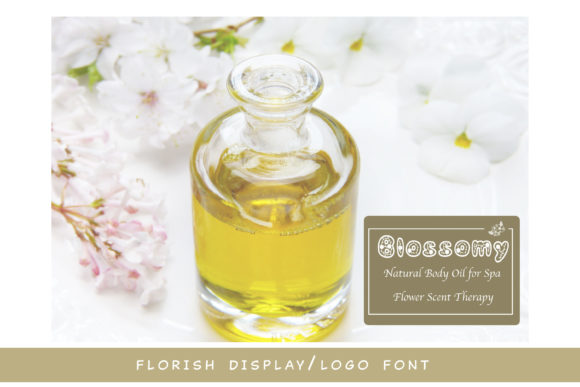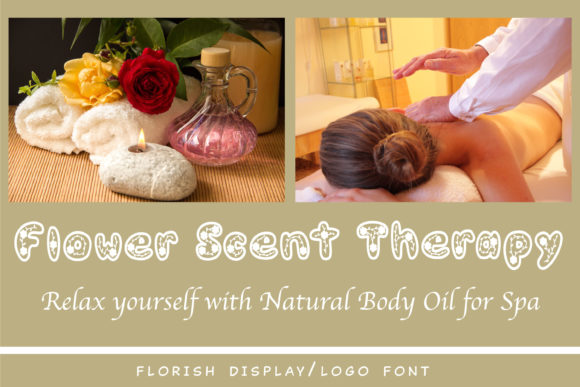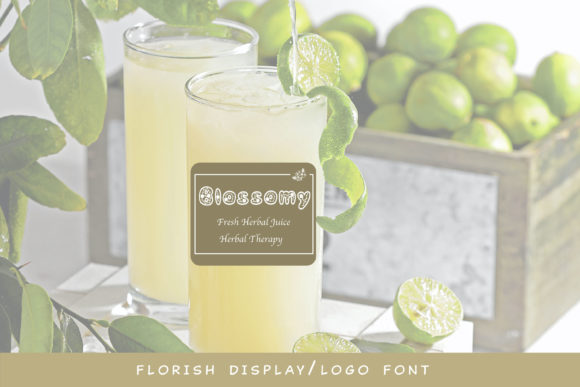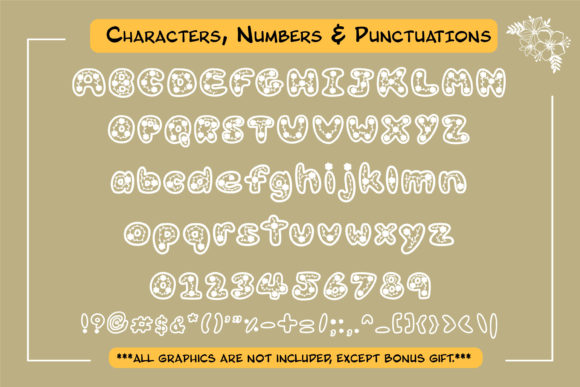
Unleash Your Creativity with Blossomy Font
Do you remember that moment when a spark of creativity hits you, and you know exactly what you want to create? The excitement is palpable, and the possibilities seem endless. For designers, that moment often comes when they’re brainstorming a new project or trying to bring a concept to life. And what better way to make your creation shine than with a font that’s as charming as it is eye-catching?
Enter Blossomy Font, a delightful decorative font designed to add a touch of whimsy and elegance to your designs. With its flowery and friendly vibe, Blossomy Font is perfect for creating posters, invitations, and social media graphics that are sure to grab attention. Whether you’re a seasoned designer or just starting out, Blossomy Font is a valuable addition to your toolkit, offering a unique way to express your creativity and make your projects stand out from the crowd.
Blossomy Font Key Features
- Unique Characteristics: The font features a unique, hand-drawn design with subtle flourishes and organic shapes, adding a touch of elegance to any text.
- Weight and Style: The font is available in 4 weights (Light, Regular, Bold, and Extra Bold) and 2 styles (Regular and Italic), providing a range of options for designers to choose from.
Blossomy Font Review
As a designer, I was excited to dive into the world of Blossomy Font. The first thing that caught my attention was the ✨ unique and playful aesthetic. The font is perfect for adding a touch of whimsy to any project, and its varied styles make it versatile for different design applications.
The font’s ✨ ligatures and swashes are a highlight, adding an extra layer of personality to any text. The ✨ extensive character set and language support make it a great choice for multilingual projects. Additionally, the font’s ✨ high-resolution output ensures that it looks great on both digital and print materials.
- ⚠️ Limited weight range: The font is available in a limited range of weights, which might not be suitable for all design needs.
- ⚠️ Kerning issues: I encountered some kerning issues, particularly with certain letter combinations, which can affect the overall readability of the text.
- ⚠️ Limited customizability: While the font has some built-in styles, it can be difficult to customize it further to fit specific design requirements.
Overall, Blossomy Font is a fun and creative choice for designers looking to add some personality to their projects. However, its limitations should be taken into consideration, and designers may need to explore additional options to achieve their desired results.
Experiment with different font sizes, colors, and styles to create a visually appealing design.
Pair the Blossomy Font with other elegant fonts to create a sophisticated look.
Blossomy Font is ideal for:
Luxury brand logos and marketing materials
High-end product packaging and labels
Alternatives to Blossomy Font
The Great Vibes Font is a modern script font with a whimsical feel. It’s perfect for creating a friendly and approachable atmosphere in designs. When to use: Great Vibes Font is ideal for branding, packaging, and advertising materials where a touch of elegance and sophistication is required.
Comparison to Blossomy Font: While Blossomy Font has a more delicate and intricate design, Great Vibes Font has a more flowing and dynamic feel. Great Vibes Font is also more versatile and can be used for a wide range of applications, from formal to informal designs.
The Carolyna Pro Font is a elegant and refined script font with a touch of sophistication. It’s perfect for creating a luxurious and high-end atmosphere in designs. When to use: Carolyna Pro Font is ideal for branding, packaging, and advertising materials where a touch of luxury and elegance is required.